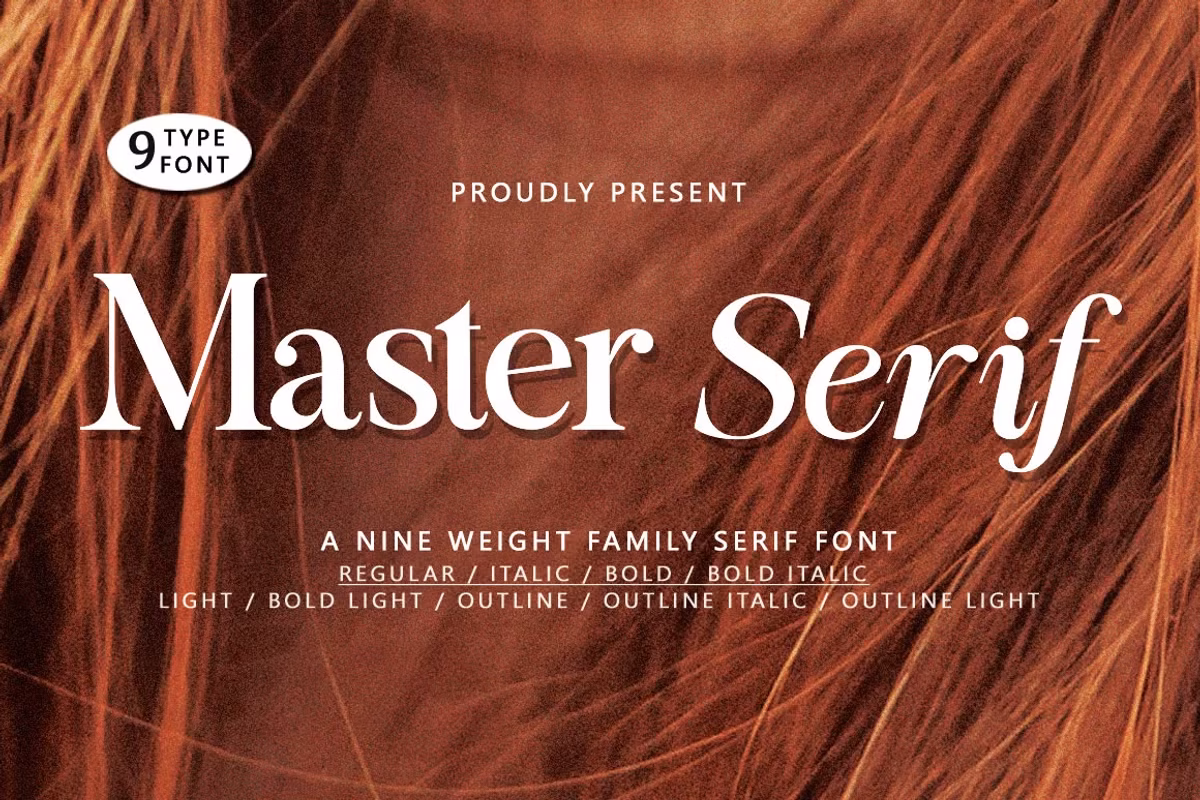
Master Serif Font Free Download is a classic and elegant serif typeface designed to bring sophistication and clarity to your designs. With its bold, structured letterforms and refined serifs, Master Serif is perfect for editorial layouts, branding, luxury packaging, headlines, and high-end websites.
Its timeless design ensures that it stands out in both traditional and modern applications, making it an ideal choice for both print and digital projects that need a professional, clean look with a touch of elegance.